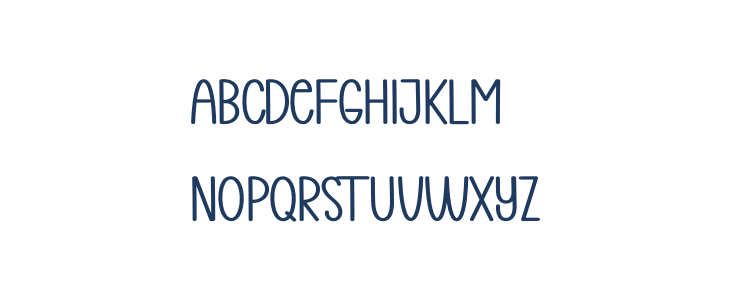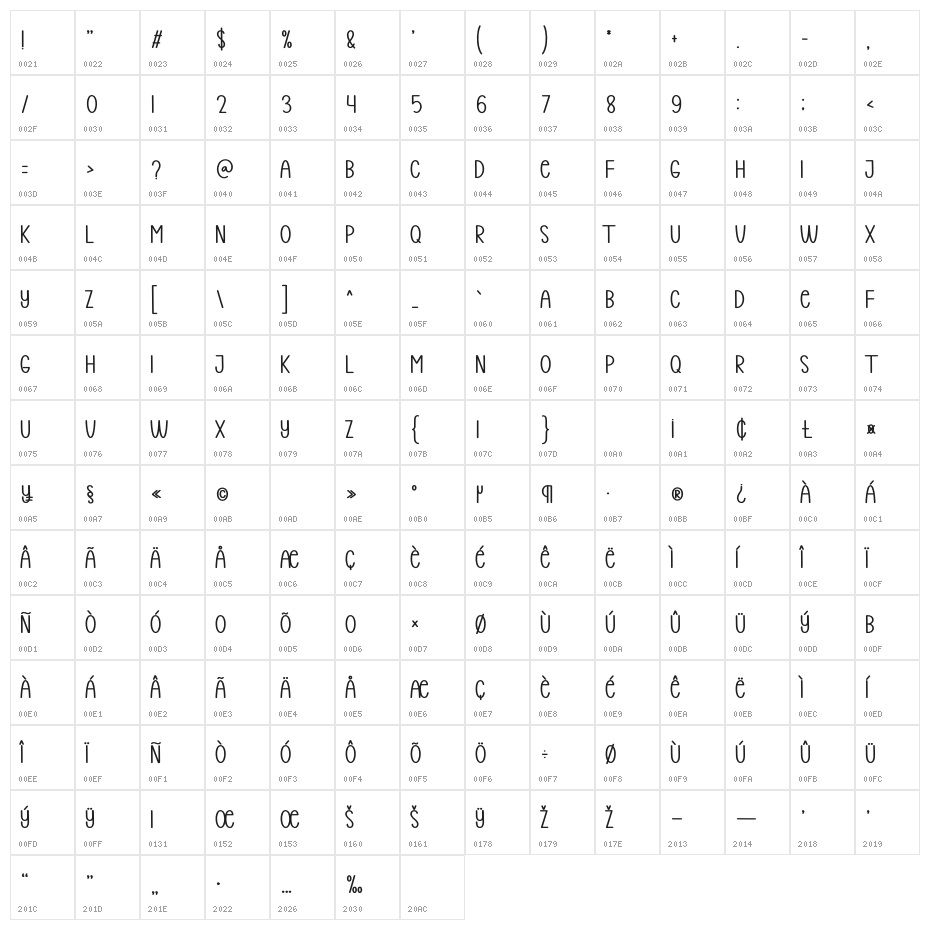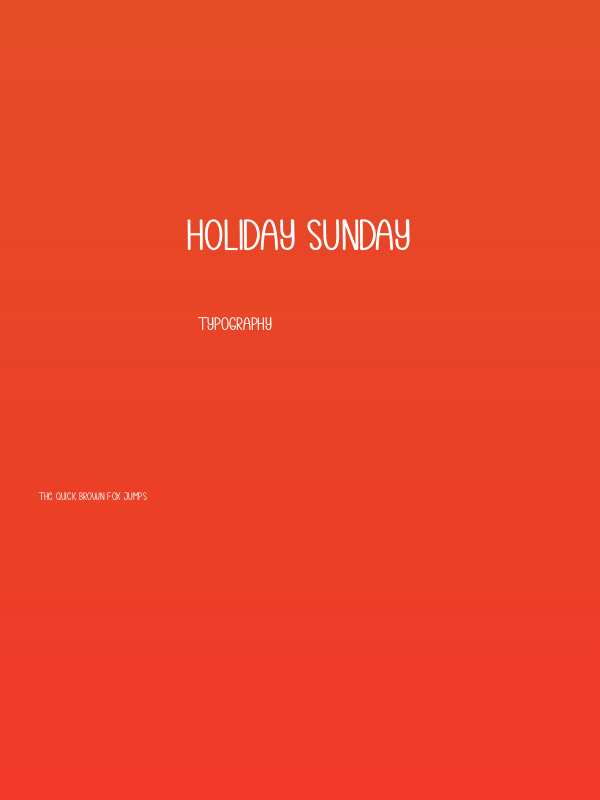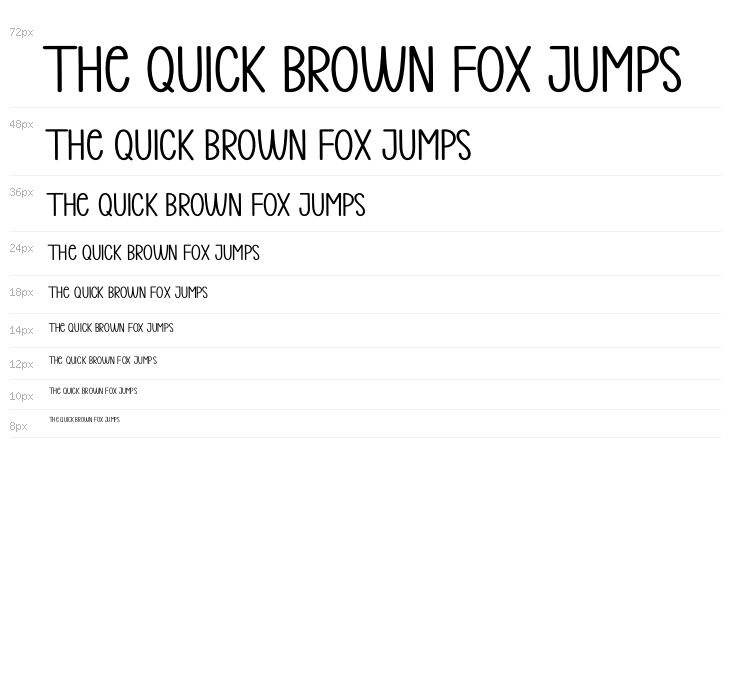
Holiday Sunday Font
Holiday Sunday Description
A playful, rounded sans-serif font with uniform stroke width, open counters, and friendly, approachable letterforms. The characters are tall with a slight handwritten feel, featuring consistent spacing and a casual, modern appearance.
| Overall Style | Playful, Modern, Handwritten |
| Use Case | Headlines, Posters, Invitations, Informal branding |
| Proposed Projects | ChildrenΓ’β¬β’s books, greeting cards, casual branding, posters, invitations. |